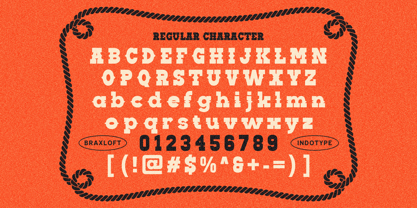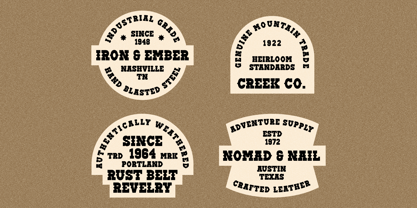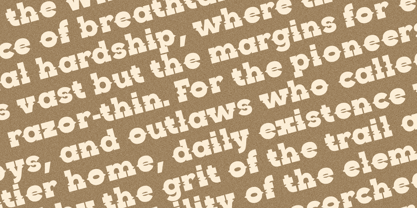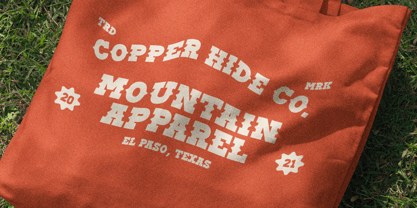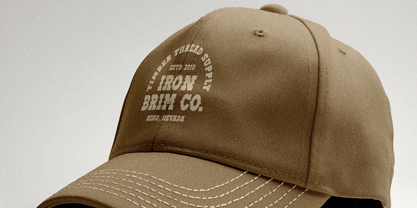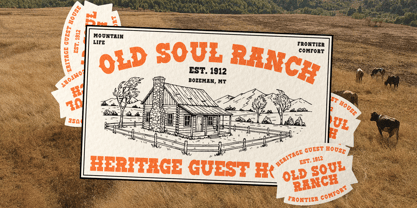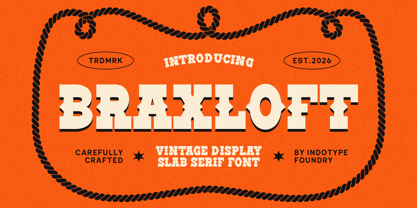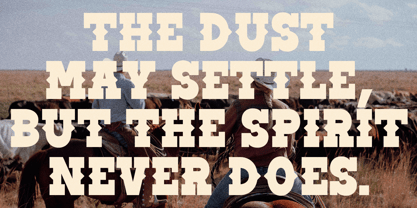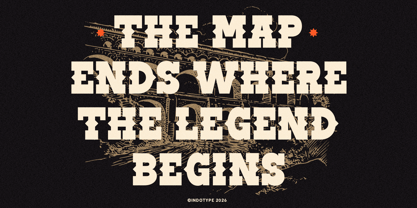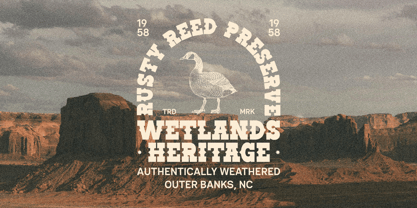
IT Braxloft
by Indotype
Braxloft is a boldly crafted slab serif typeface that channels the spirit of the American frontier—rugged, honest, and built to last. With its sturdy block-like serifs, weathered texture, and commanding presence, this font evokes the typography of vintage wanted posters, frontier signage, and rustic timber branding. Every letterform feels hand-carved from aged wood, bearing the marks of time and character. Carefully crafted with authentic vintage details, Braxloft brings warmth, history, and undeniable personality to any design. Perfect for whiskey labels, craft breweries, western-inspired branding, rustic hospitality, and any project that aims to tell a story of tradition, craftsmanship, and frontier grit. It's more than a font—it's a piece of American heritage. • Ideal for: Whiskey & Spirits Labeling, Craft Brewery Branding, Western-Themed Designs, Rustic Hospitality & Lodging, Vintage Signage & Posters, Outdoor & Adventure Brands. • Classification: Slab Serif, Western, Vintage, Display, Rustic. • Attributes: Rugged, Honest, Weathered, Hand-Carved, Authentic, Timeless, Bold.